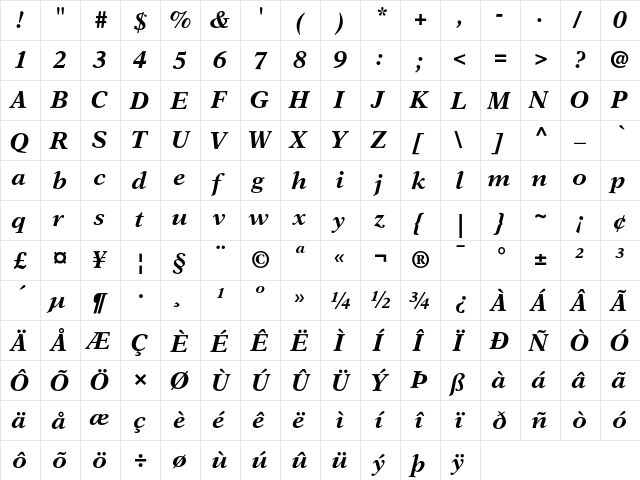
New Aster Bold Italic
Design Context for New Aster Typeface
New Aster is a composed and adaptable typeface that performs quietly and consistently across a wide range of design contexts. Its italic angle brings a sense of urgency and motion to the letterforms. The heavy weight commands attention and anchors typographic hierarchies.
Pro Tip: Try New Aster for annotation and caption copy alongside an upright companion — the contrast in angle creates a dynamic but ordered typographic system.